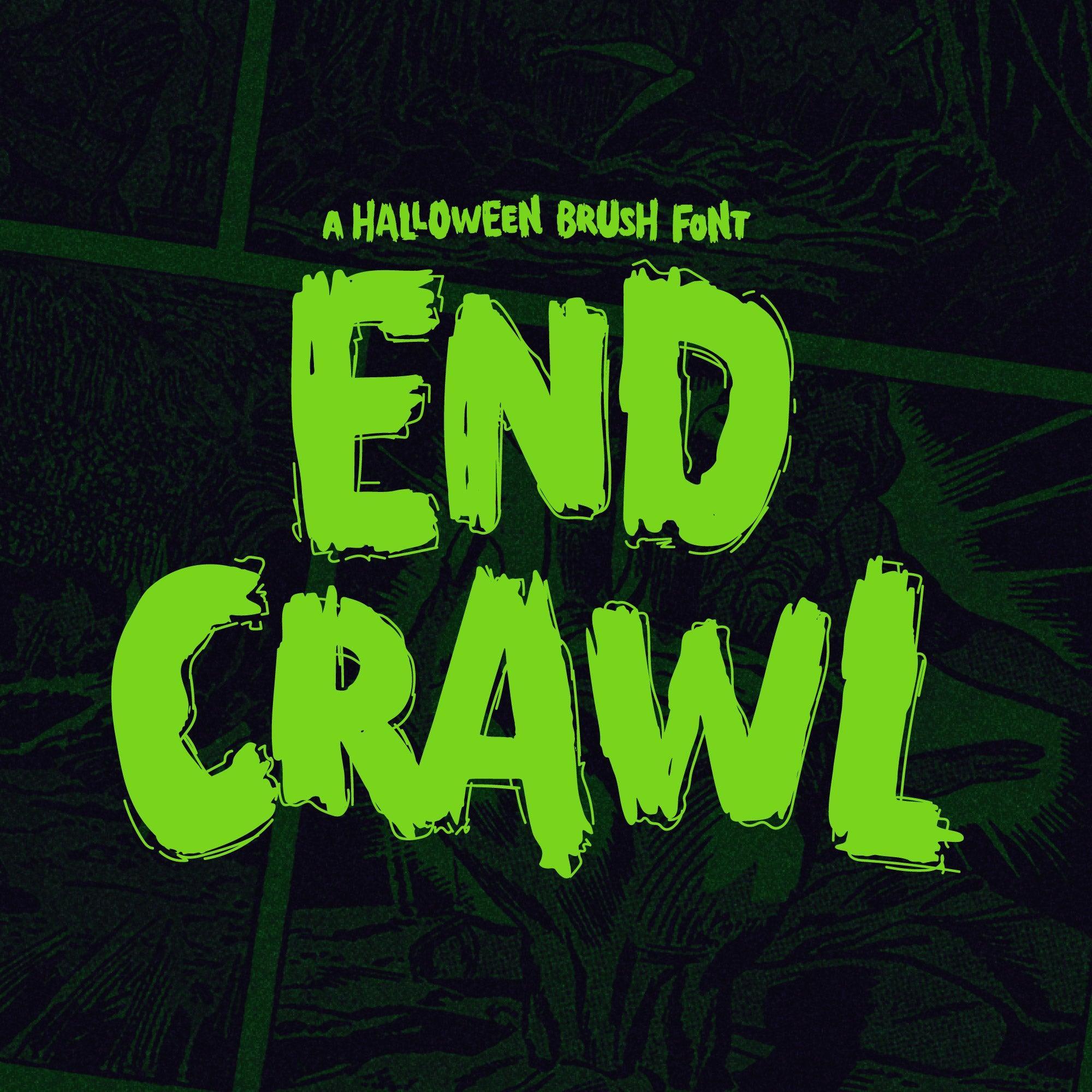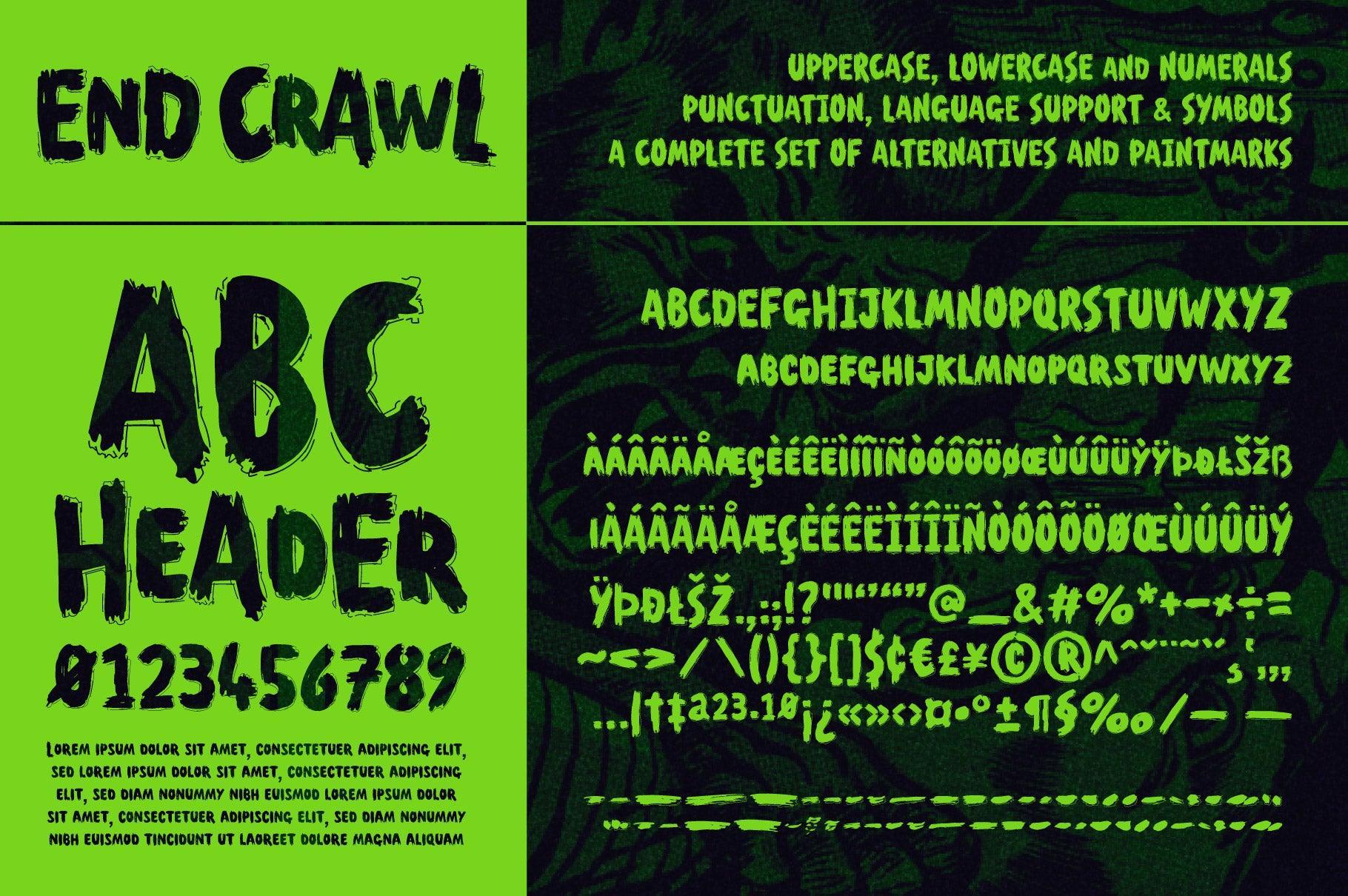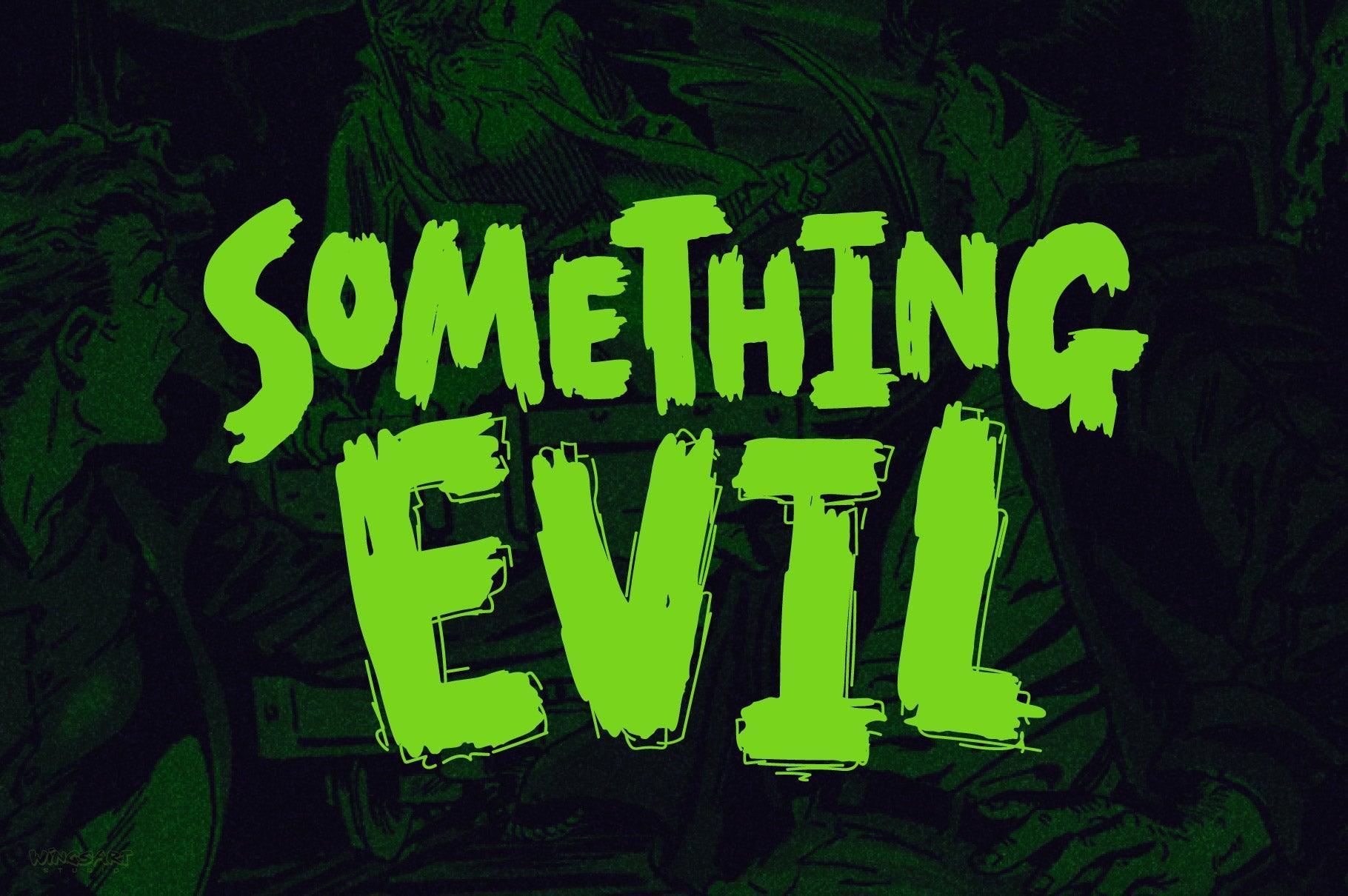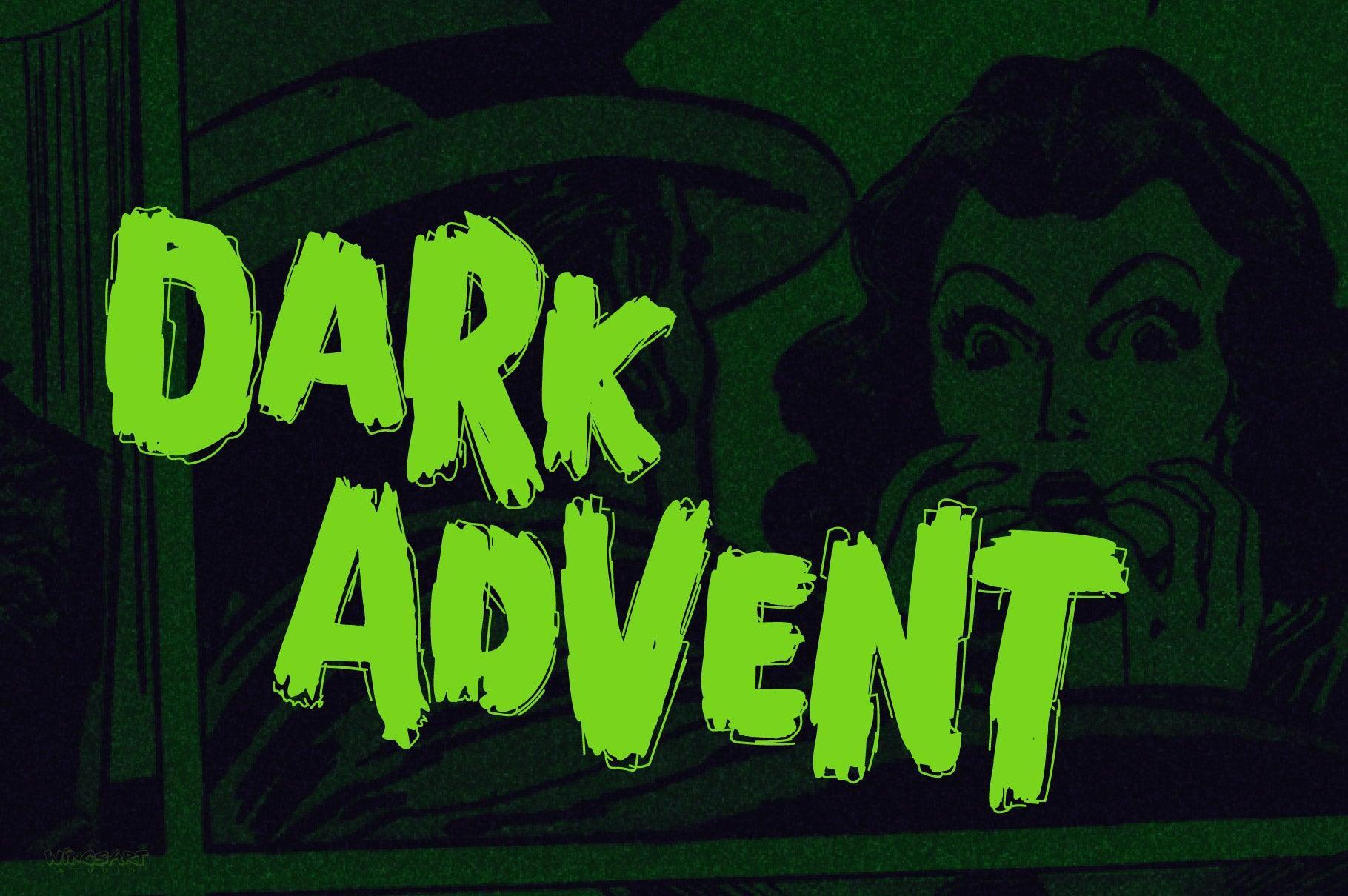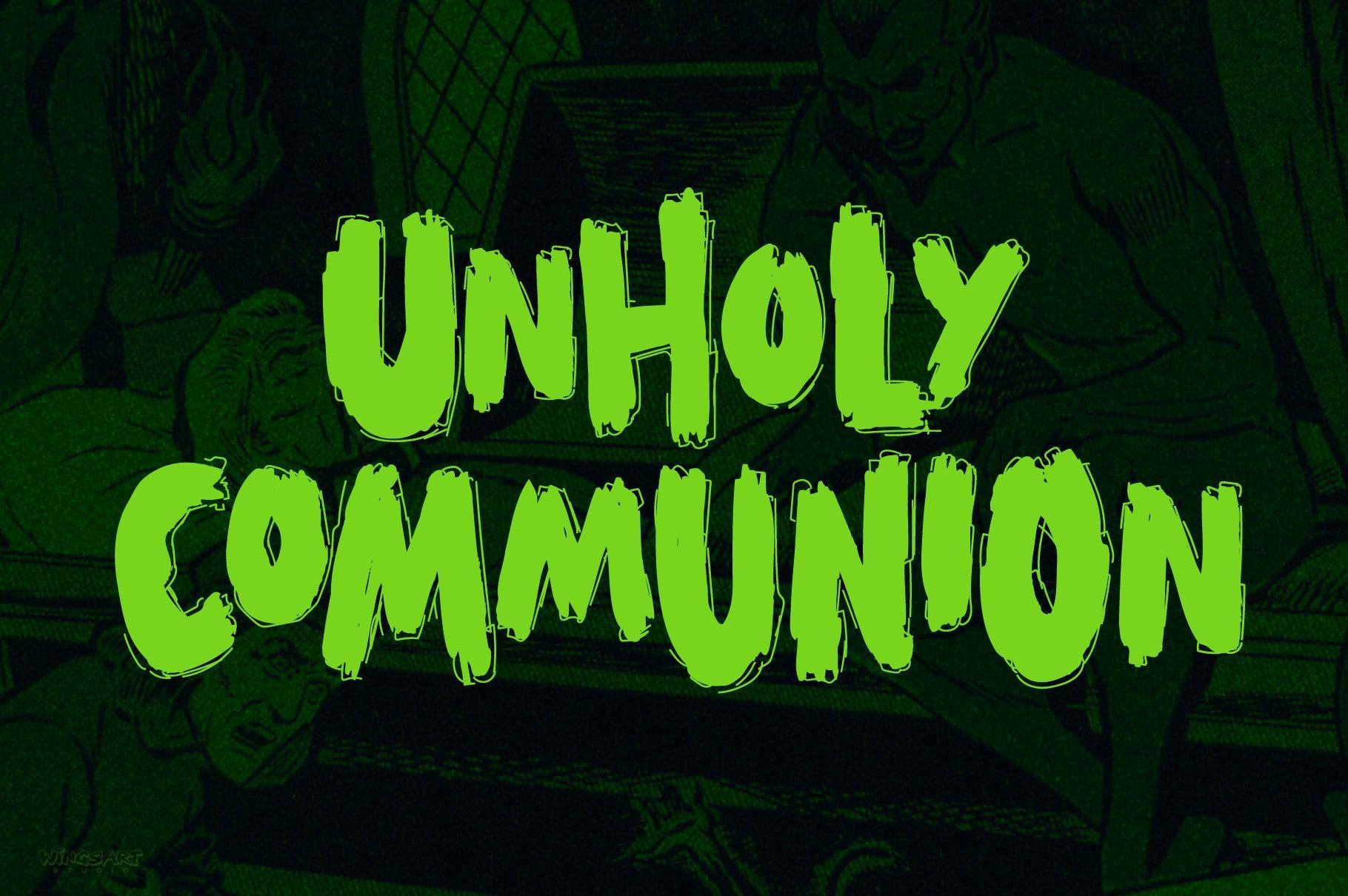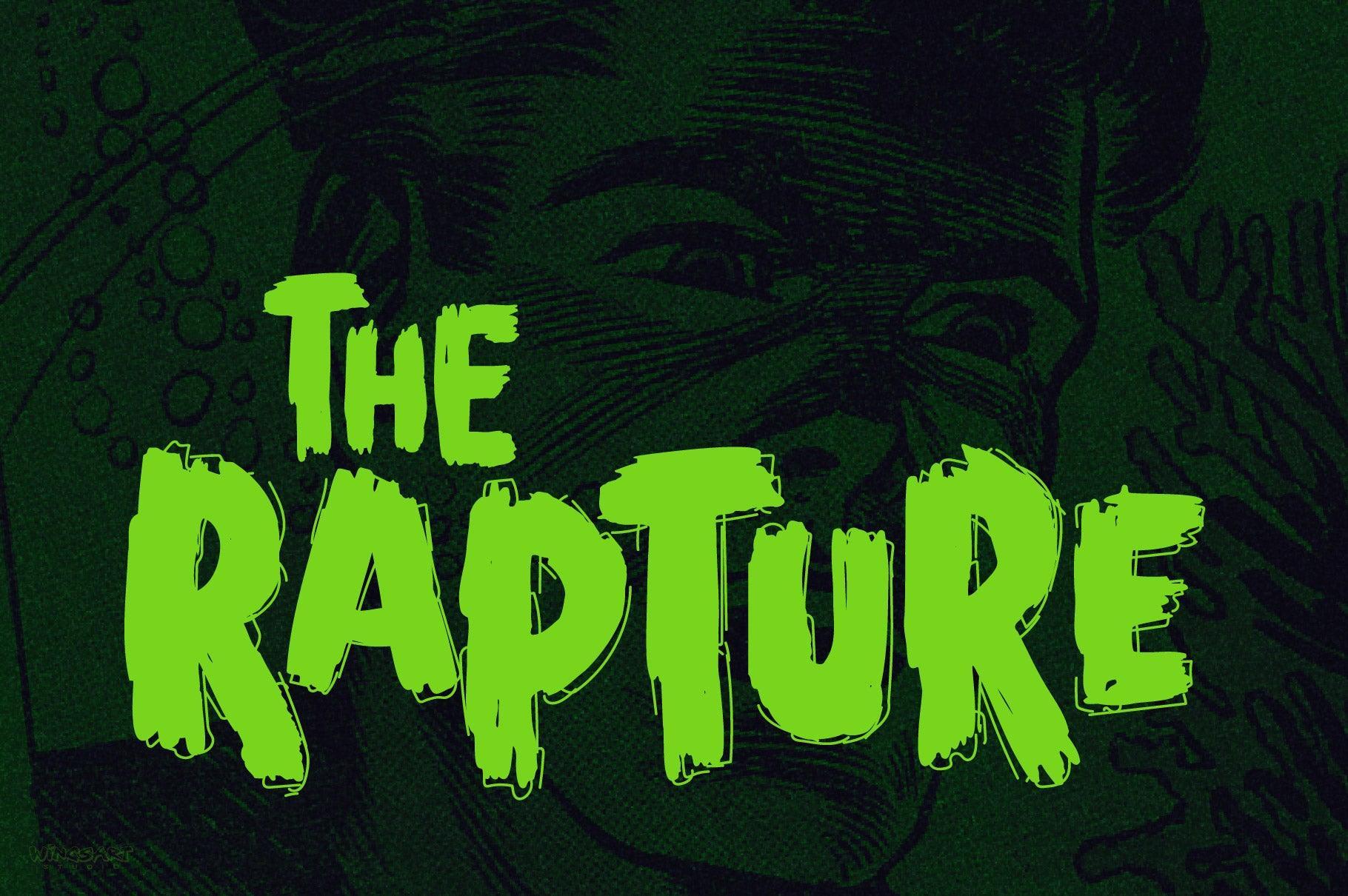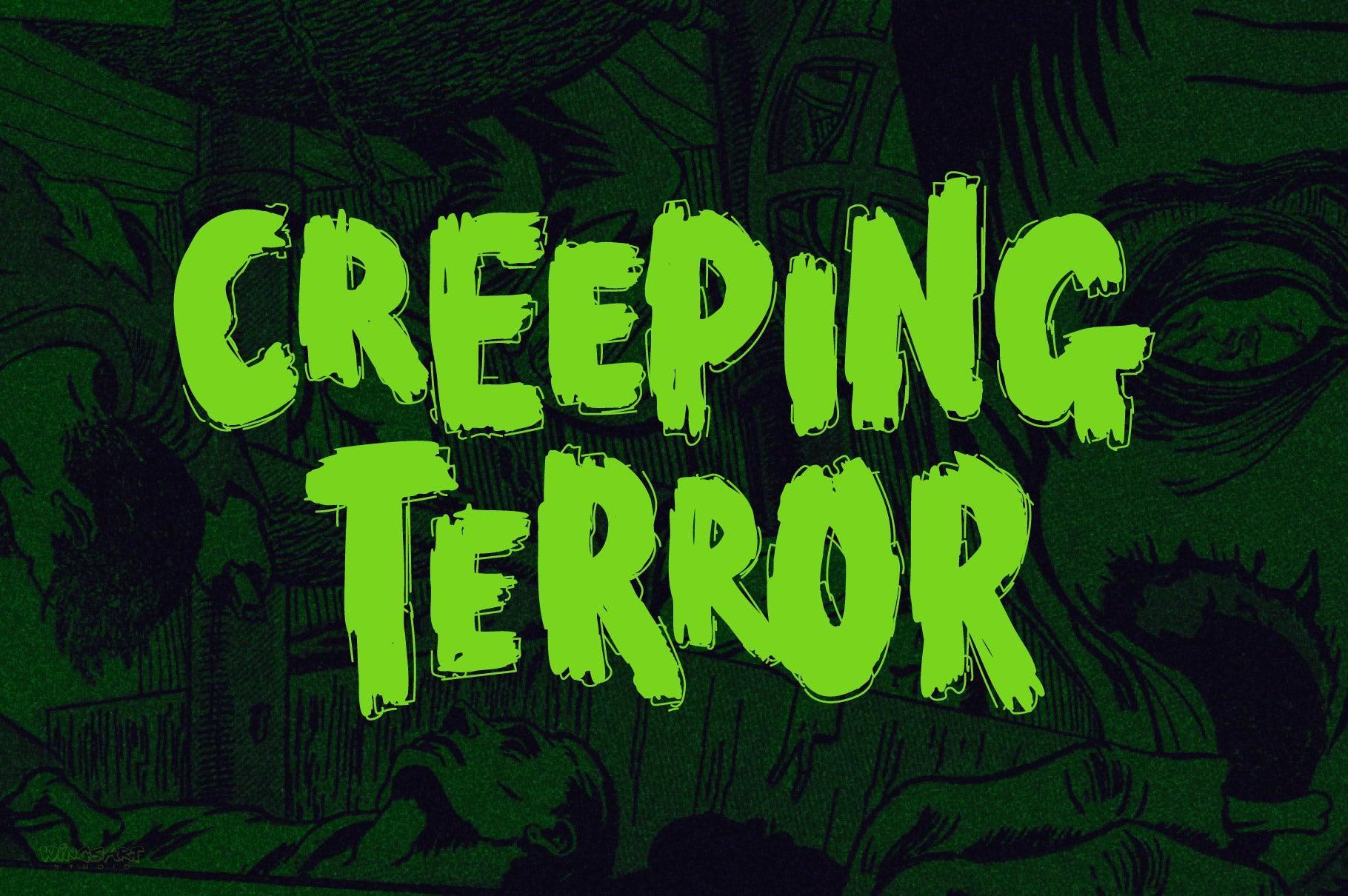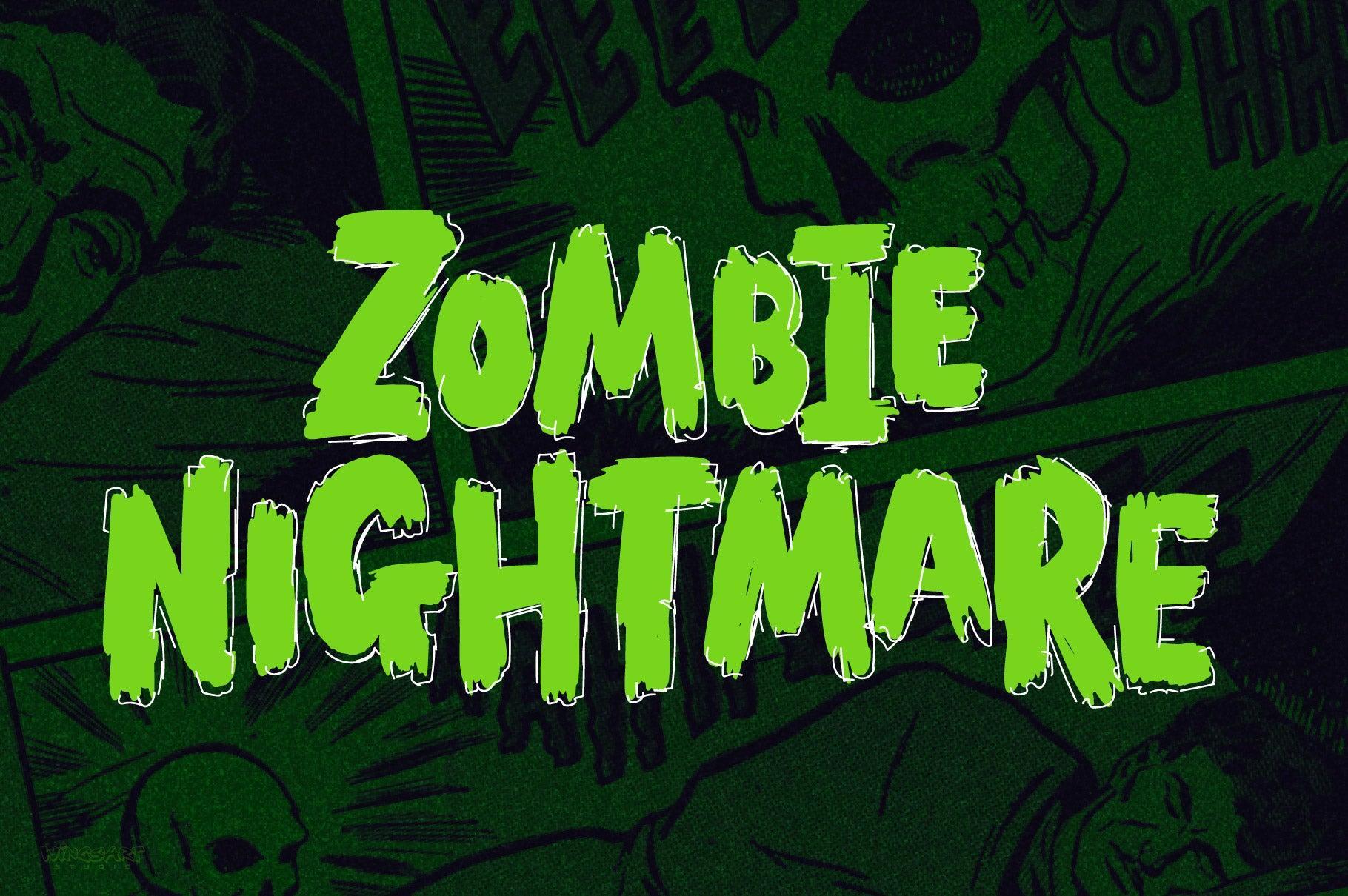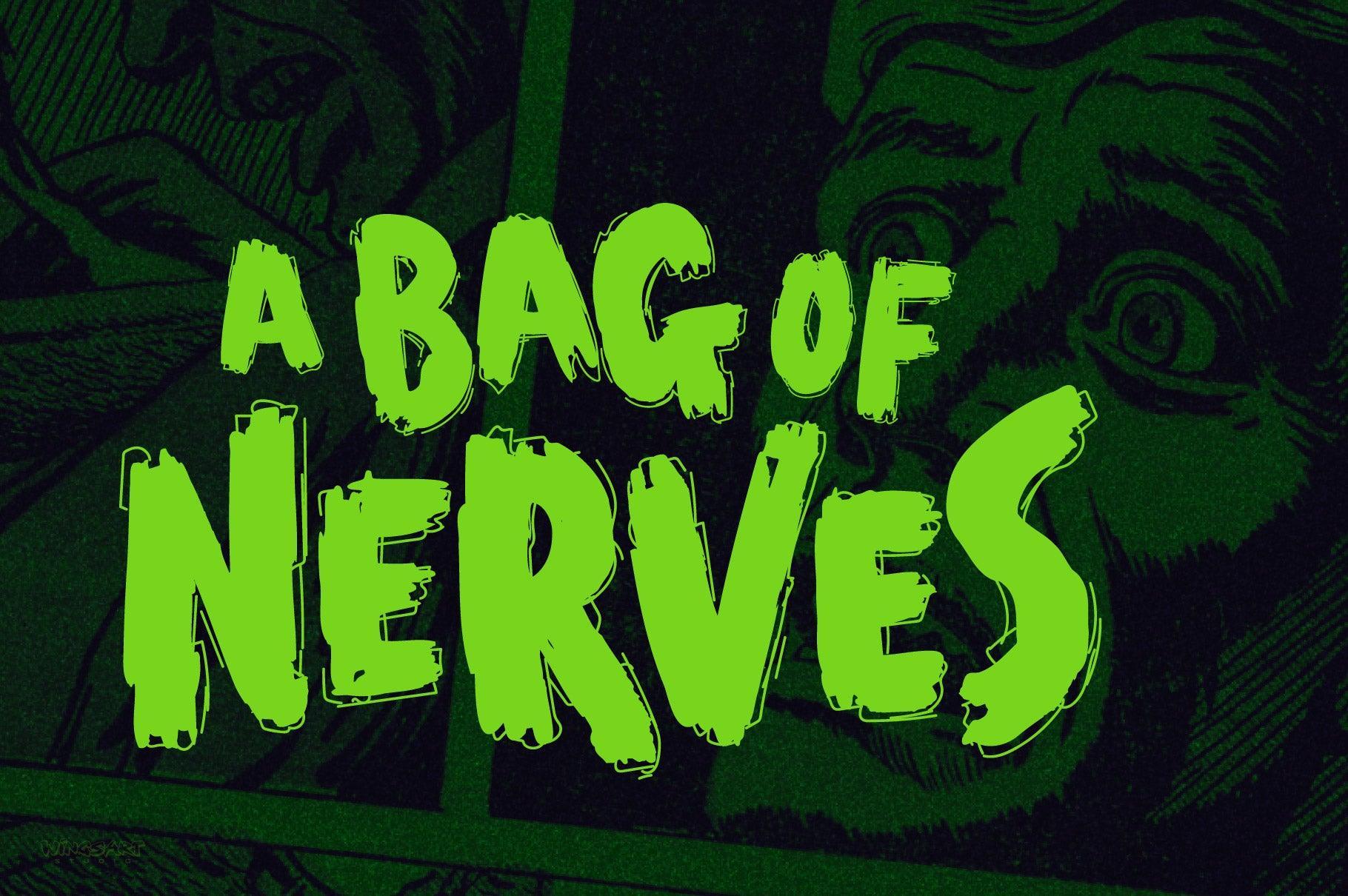
End Crawl - A Halloween Brush Font
End Crawl is a hand-drawn brush font designed for Halloween, featuring a textured all-caps style inspired by 1970s and 80s horror movies and comic books. It includes uppercase and lowercase characters, numerals, punctuation, symbols, alternative characters, and additional paint marks, drips, and splashes, along with separate base font and outline options for customizable designs.
Ideal for horror-themed graphic design and retro-inspired projects. Perfect for posters, branding, album covers, and Halloween promotions, ensuring a chilling and immersive visual experience that captures the essence of 1970s and 80s horror aesthetics.